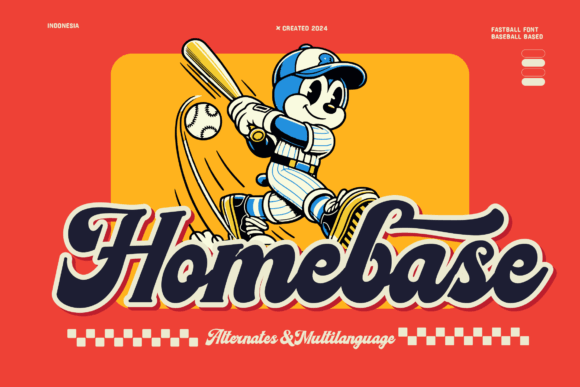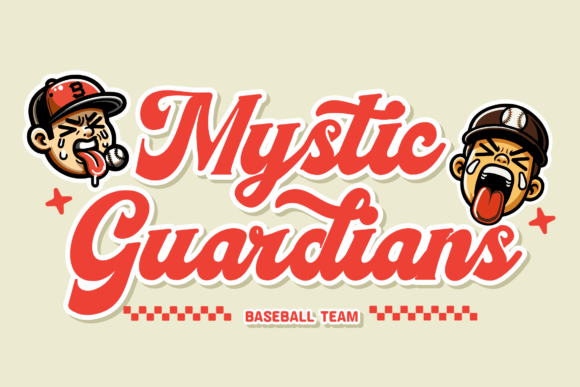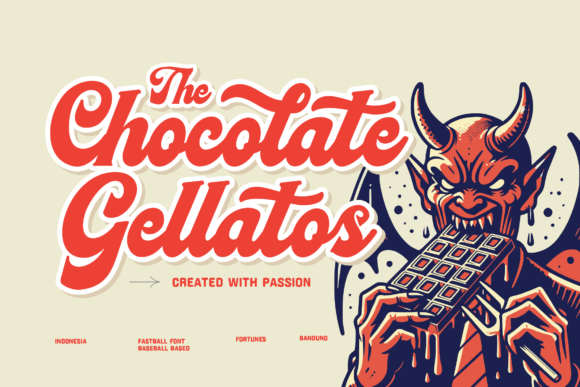
Fasty Font: A Bold Script for Playful Baseball Branding & DIY Projects
About the Fasty Font
Step up your design game with Fasty Font, a font that exudes confidence and style. Fasty is script font with a baseball theme brings the excitement and nostalgia of America’s favorite pastime to the forefront. Its flowing, cursive strokes emulate the graceful motion of a pitcher’s throw or a batter’s swing. The font’s design often incorporates elements like baseball seams, bats, or caps, adding a playful yet authentic touch. Each letter connects seamlessly.
Fasty Font’s playful energy makes it ideal for headlines, logos for sports-related brands, or short, impactful quotes on posters and packaging. Its highly decorative nature, however, makes it unsuitable for body text or UI elements where readability is paramount. Long passages set in Fasty would be extremely difficult to read.
This font pairs well with clean sans-serif fonts like Open Sans for a balanced contrast, or with a bolder, geometric sans-serif such as Montserrat for a more striking effect. For a more vintage feel, a classic serif like Garamond could provide sophisticated counterpoint. Avoid pairing it with other script fonts, as this would create visual clutter.
Fasty’s overall personality is energetic and nostalgic, conveying a sense of fun and American tradition. It is best suited for brands aiming for a youthful, spirited image with a touch of retro charm.